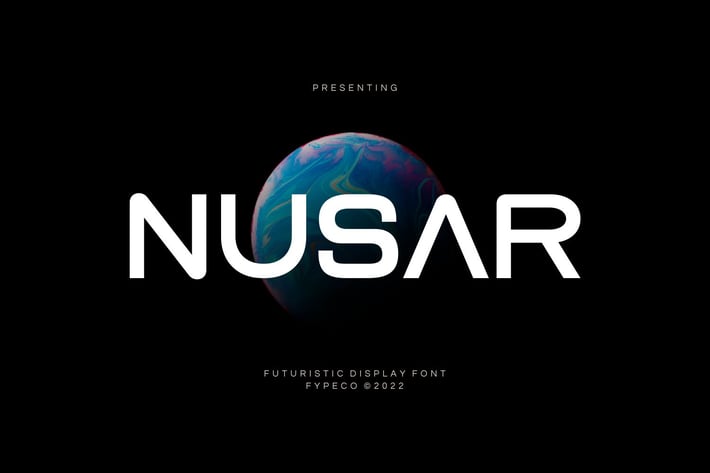
Nusar - Futuristic Display Font
Nusar is a futuristic font it an eye-popping aesthetic, inspired by sci-fi and future style. That is clean and minimalist, yet very versatile. Ideal for sci-fi and space designs, you can also apply this on adventure, branding, or music themes.
Font Features
-Uppercase
-Lowercase
-Alternatives
-Ligatures
-Numerals & Punctuation
-Multilingual Support